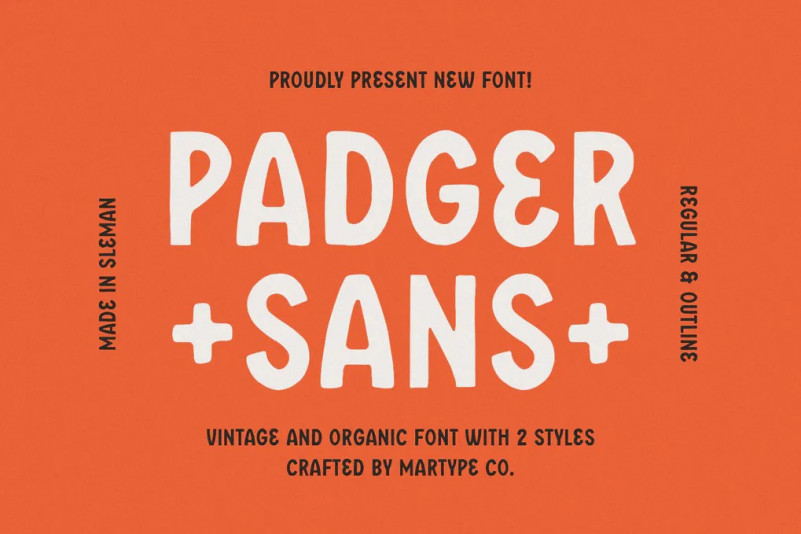
Padger Font
Padger Sans is a double font designed with carefully handcrafted. Also suitable for branding, T-shirt, Classic Design, Logotype, and any project. Comes with a tons of ligature and alternates make your life more than comofortable, easier to design and free stress.